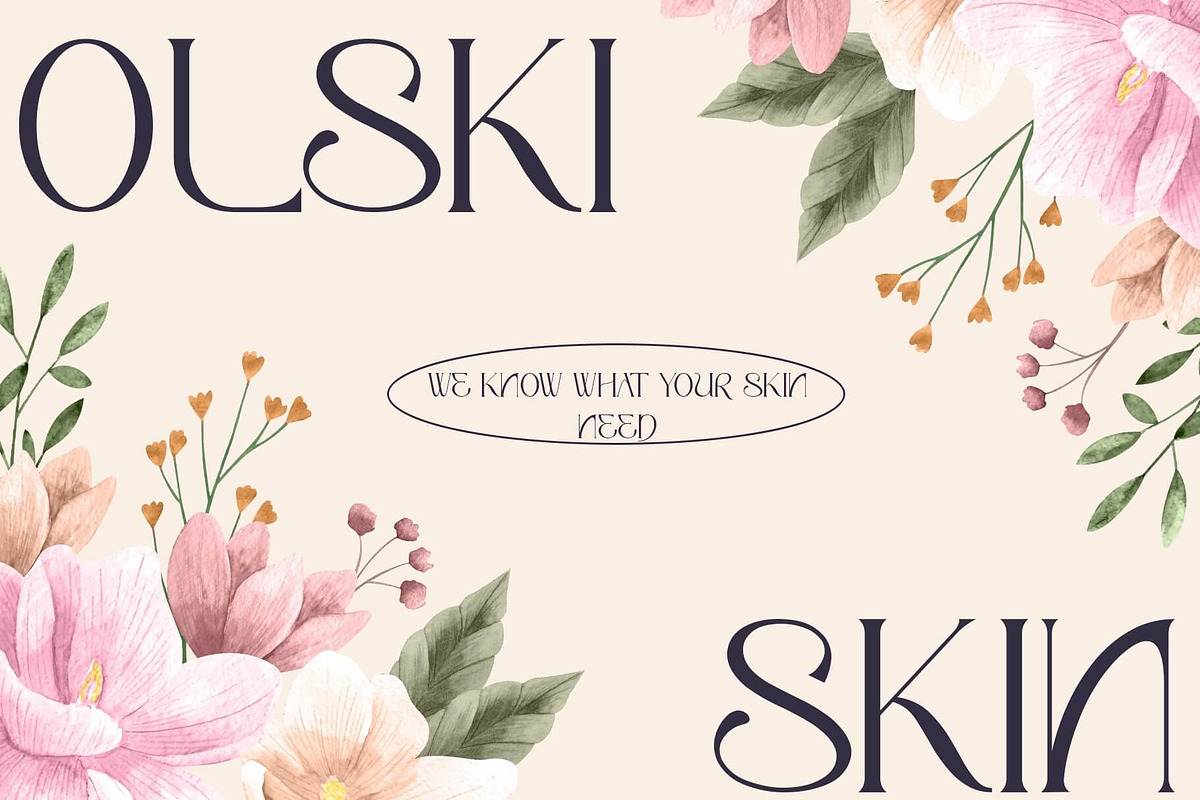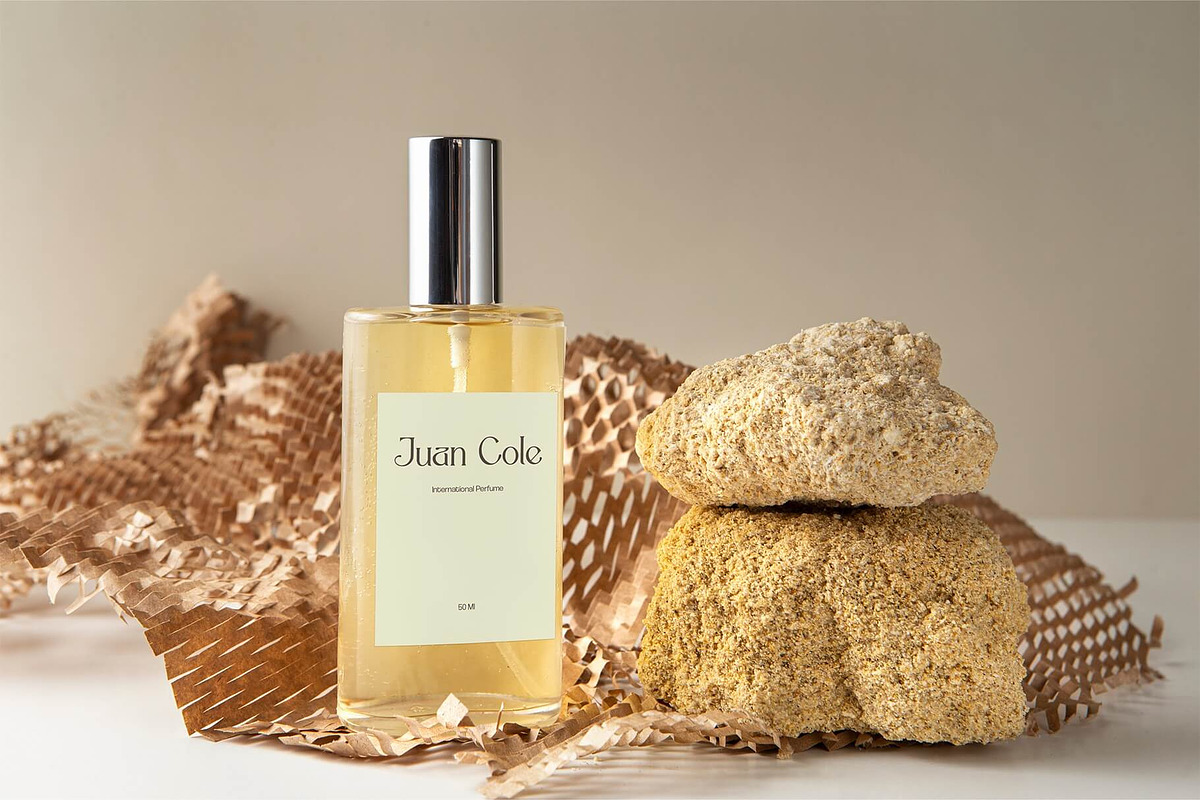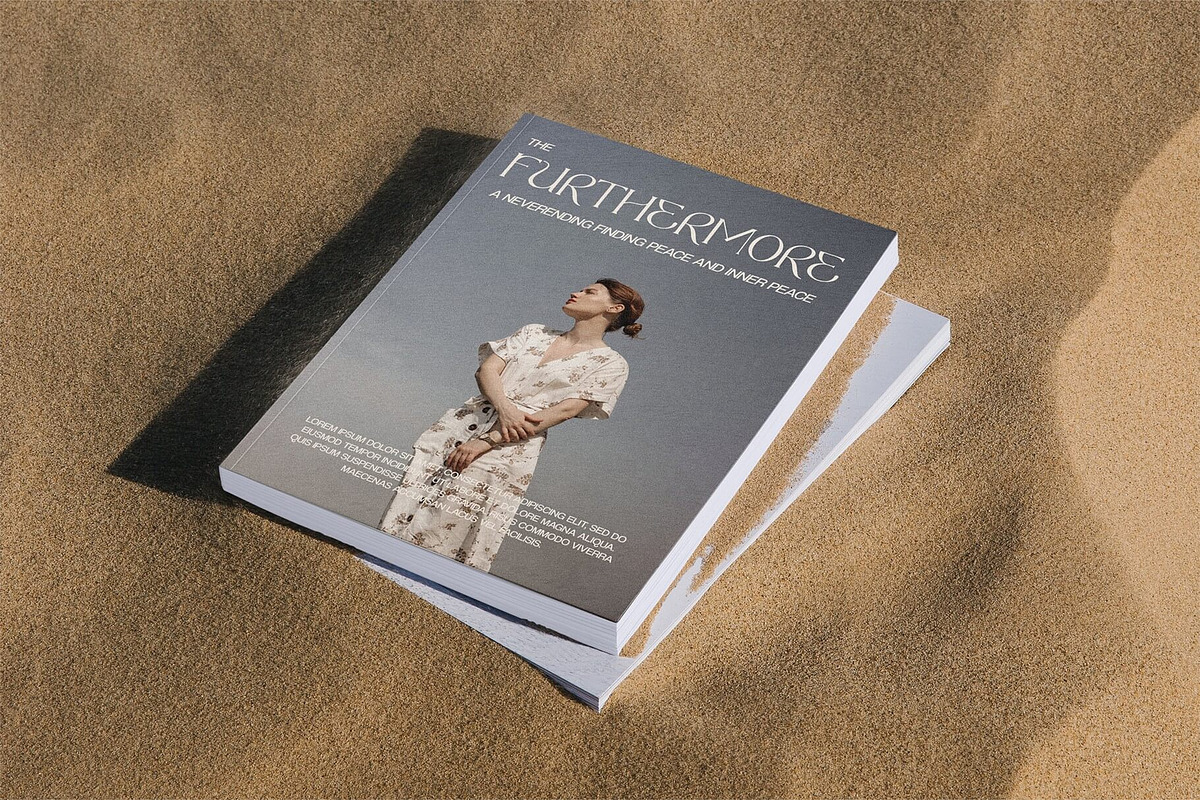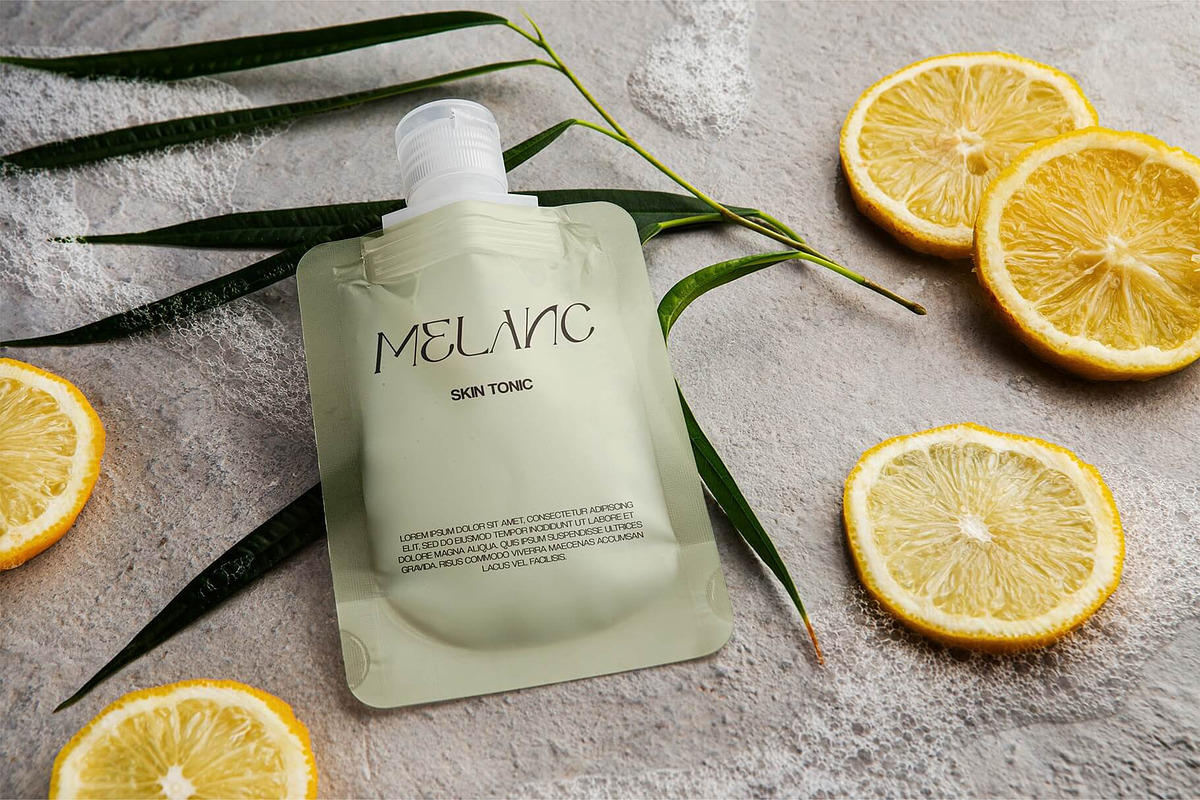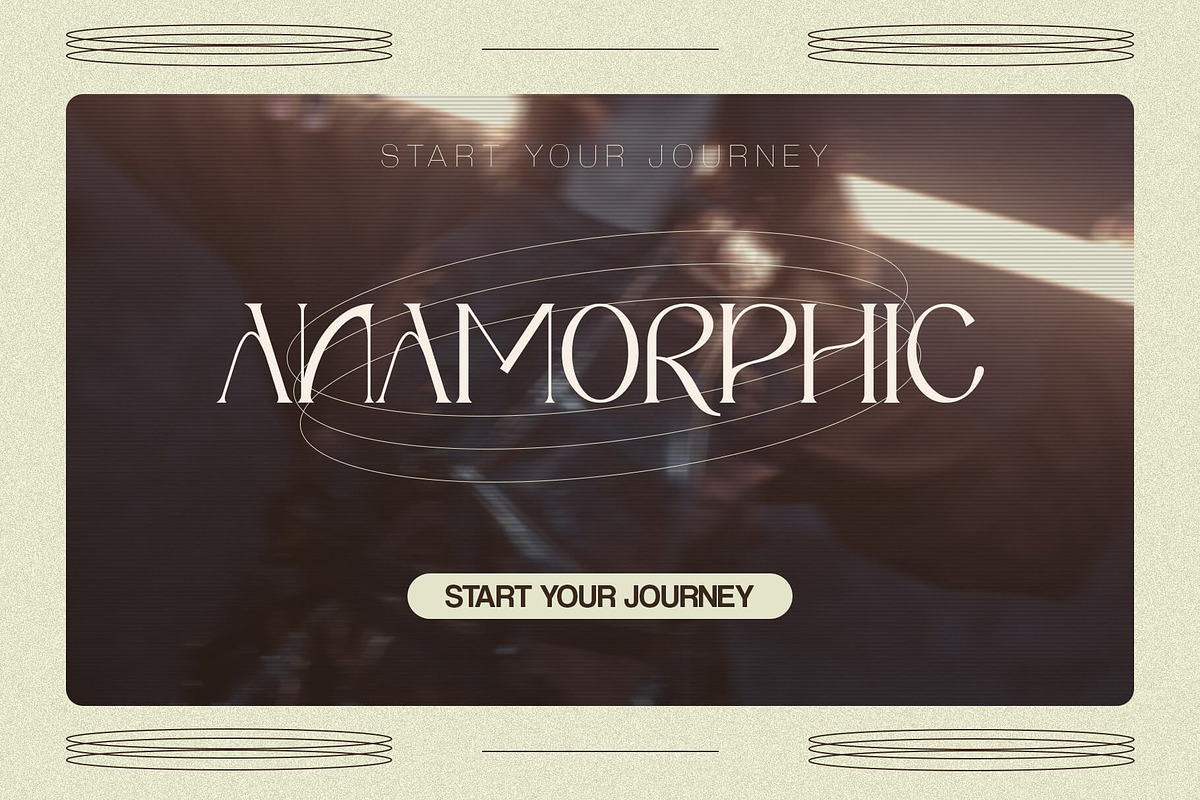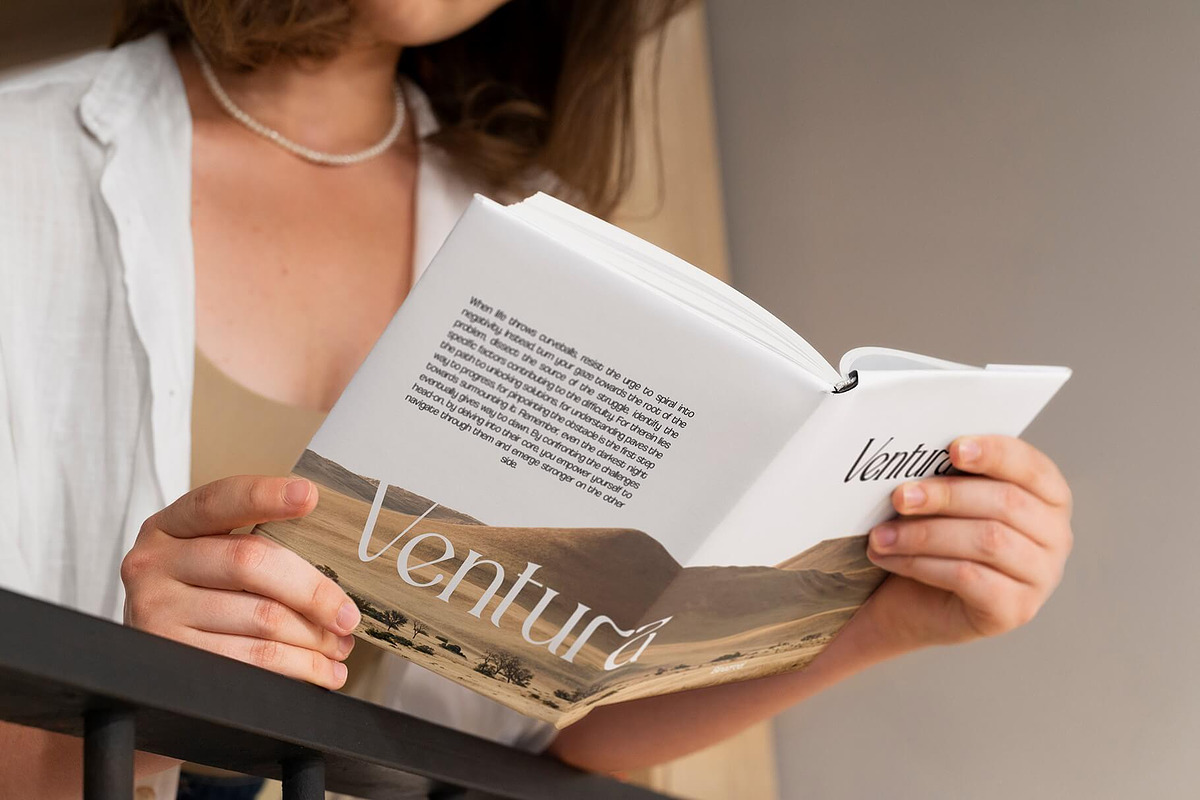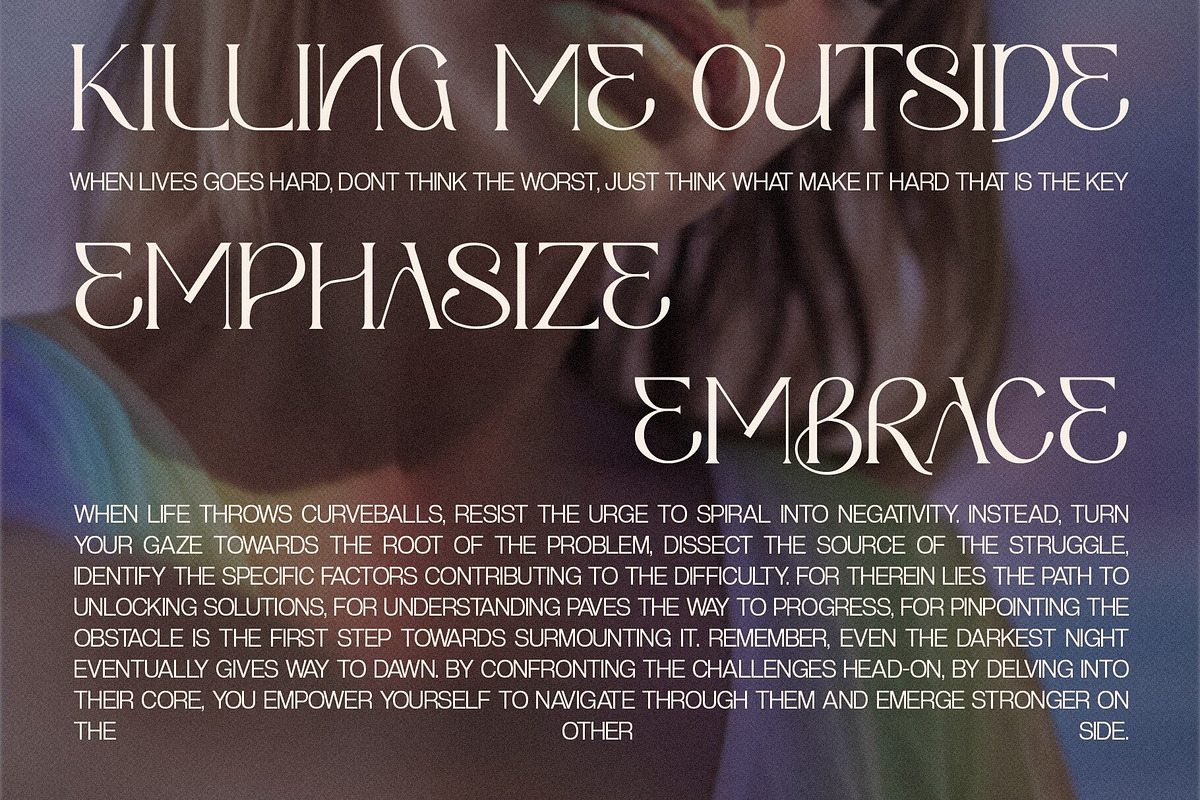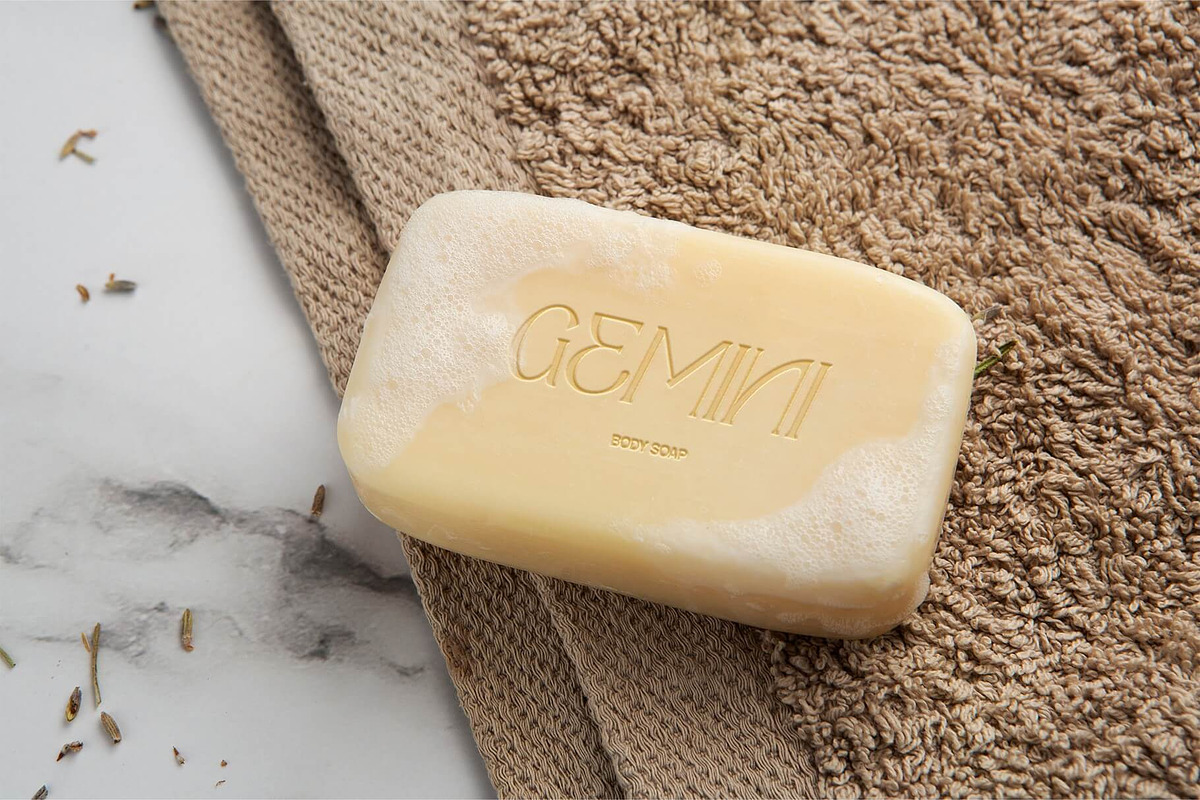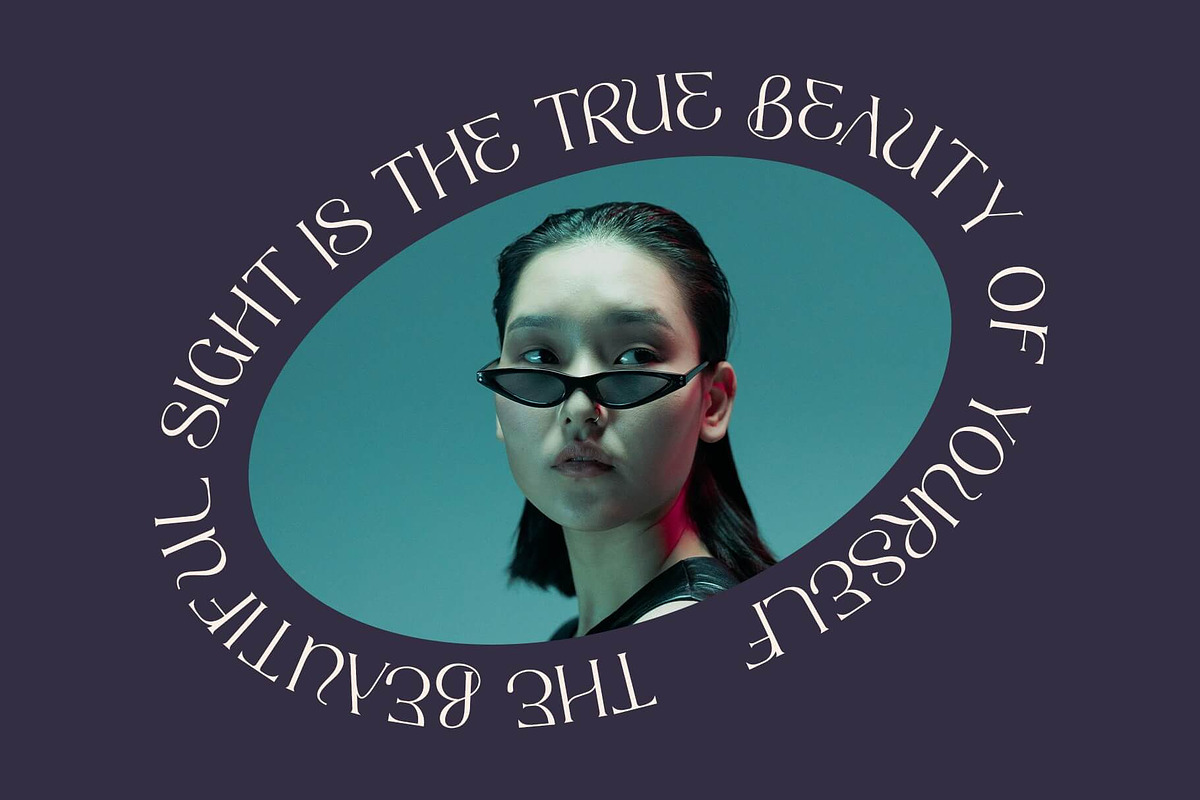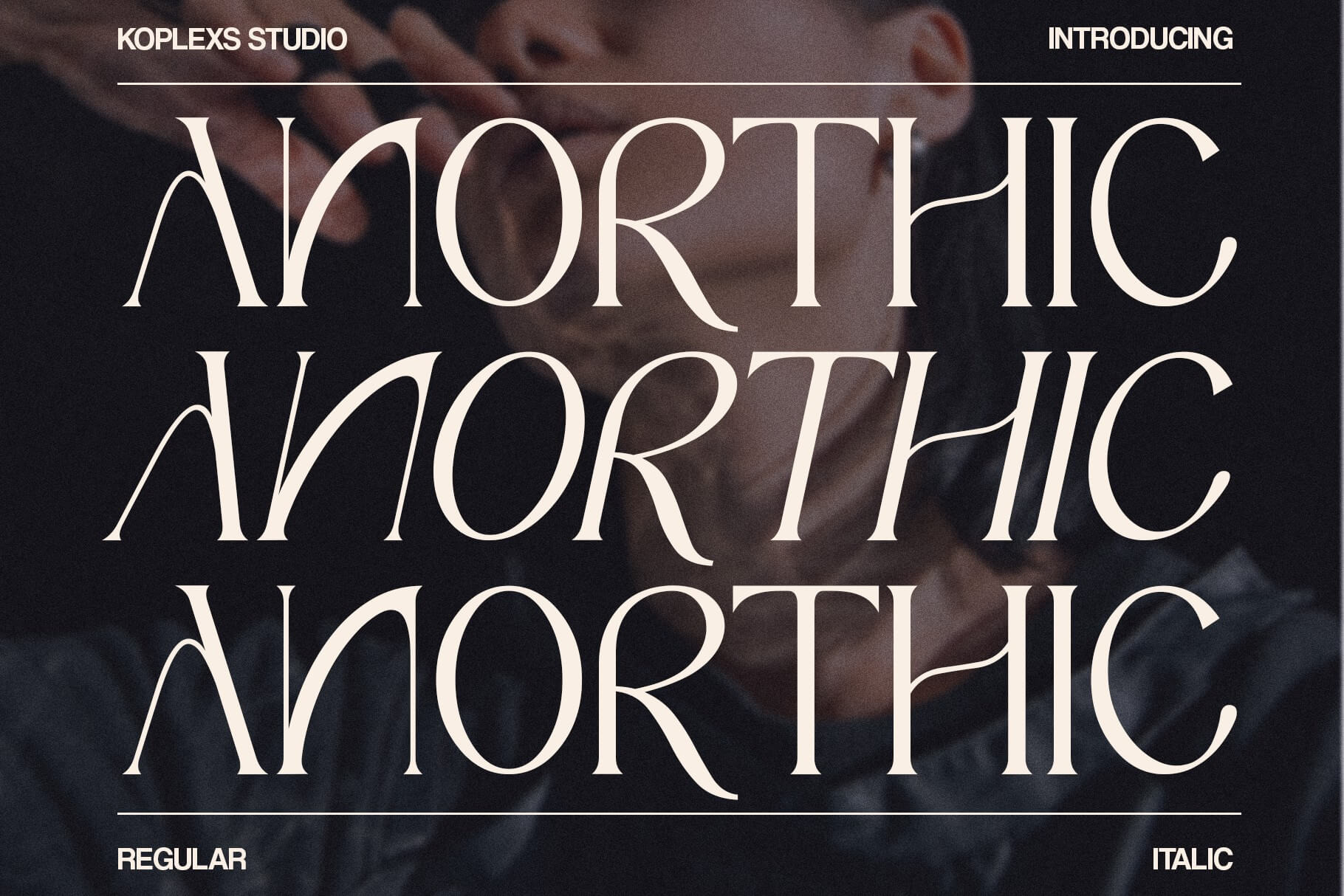
Anorthic - Modern Serif Font
Modern Serif Font
Anorthic - Modern Serif Font
Anorthic - the epitome of modern sophistication in typography. With its sleek lines and refined curves, this contemporary serif font effortlessly blends tradition with innovation. Anorthic offers both regular and italic styles, providing versatility for your creative endeavors.
Crafted for those who seek elegance with a modern twist, Anorthic is perfect for elevating your branding, editorial designs, website aesthetics, and more. Whether you're designing a sleek logo, elegant invitations, or captivating headlines, this font adds a touch of timeless charm to any project.
Embrace the power of Anorthic to captivate your audience and leave a lasting impression. Elevate your designs with this modern serif font and unleash your creativity today.
- Anorthic Regular And Italic
- Alternate Features
- Ligature Features